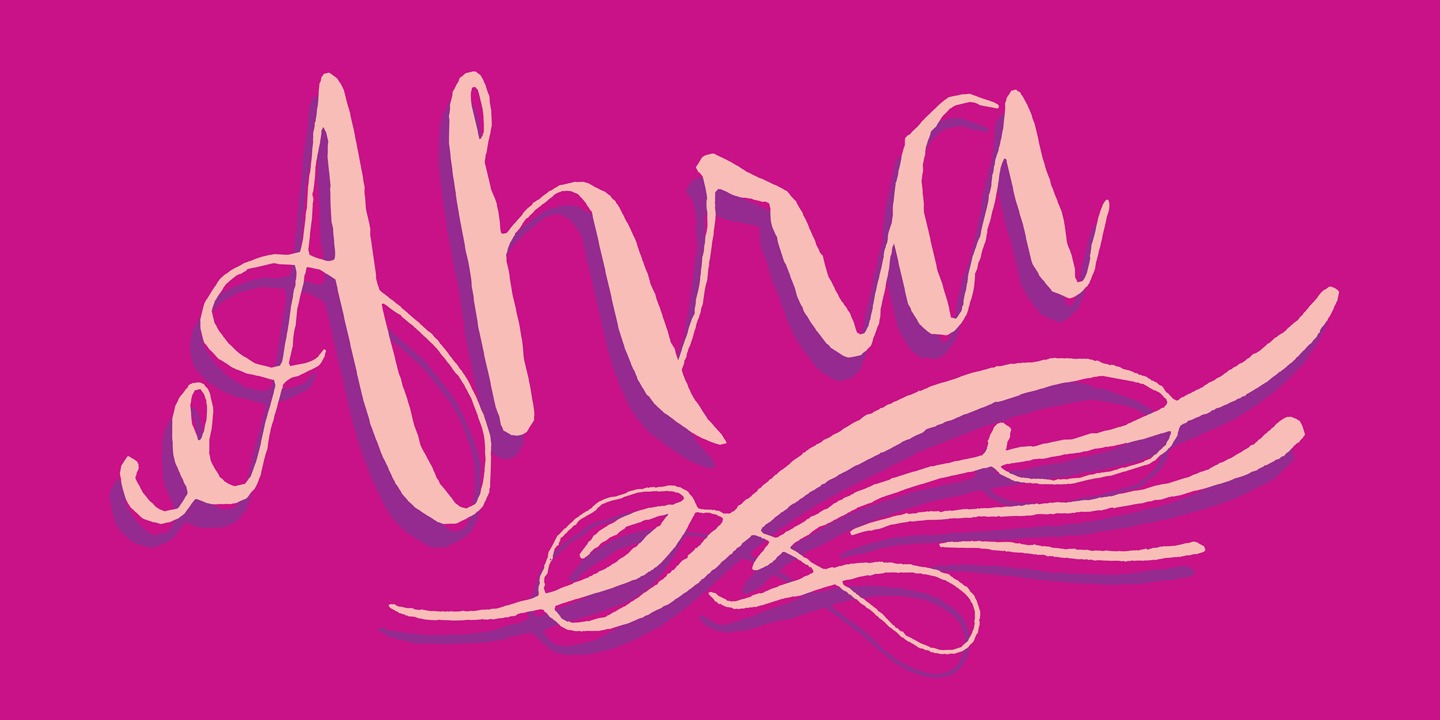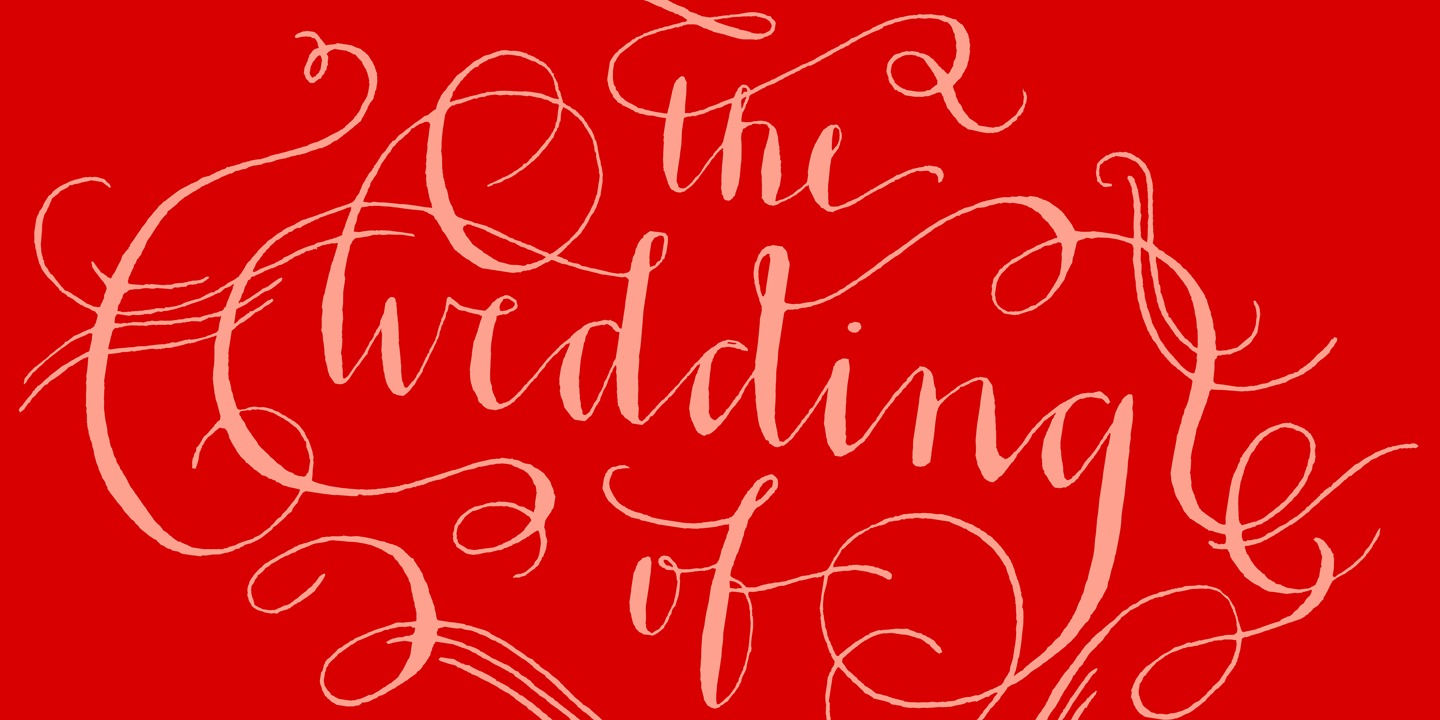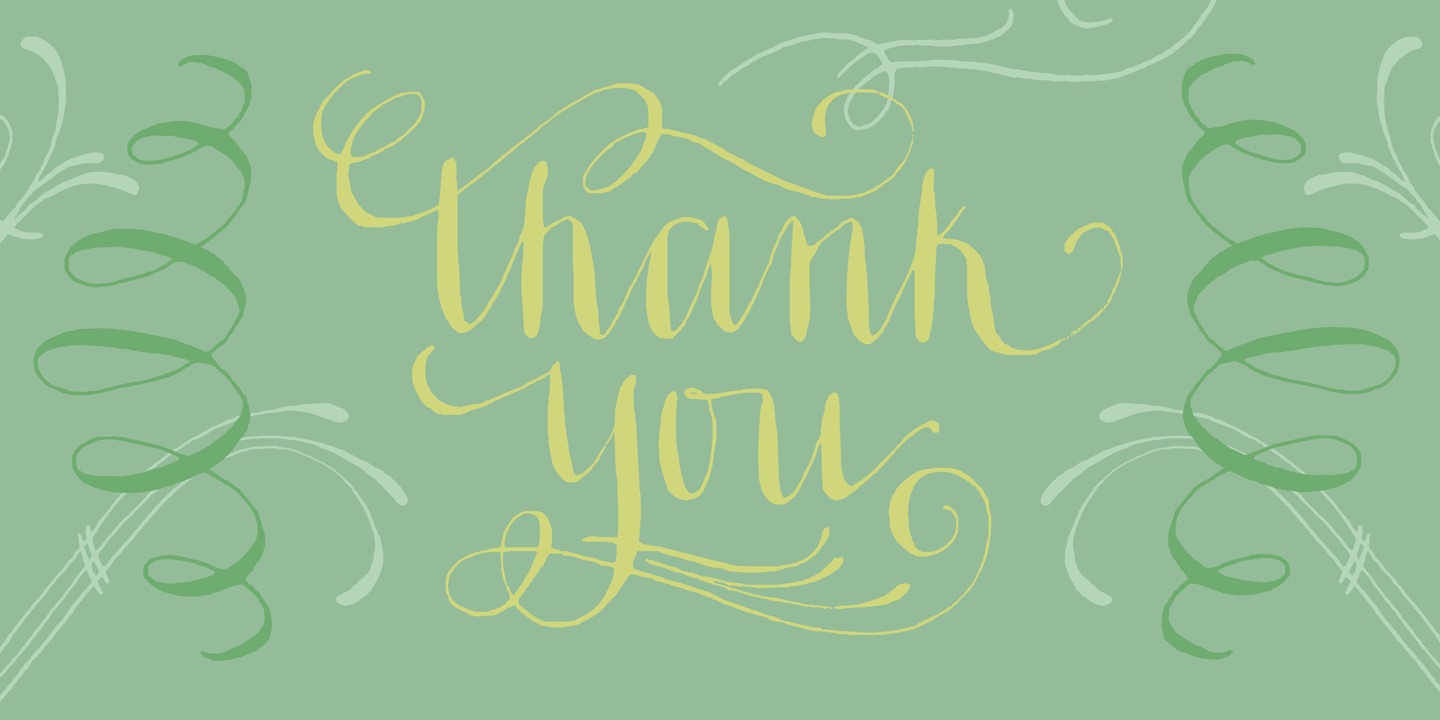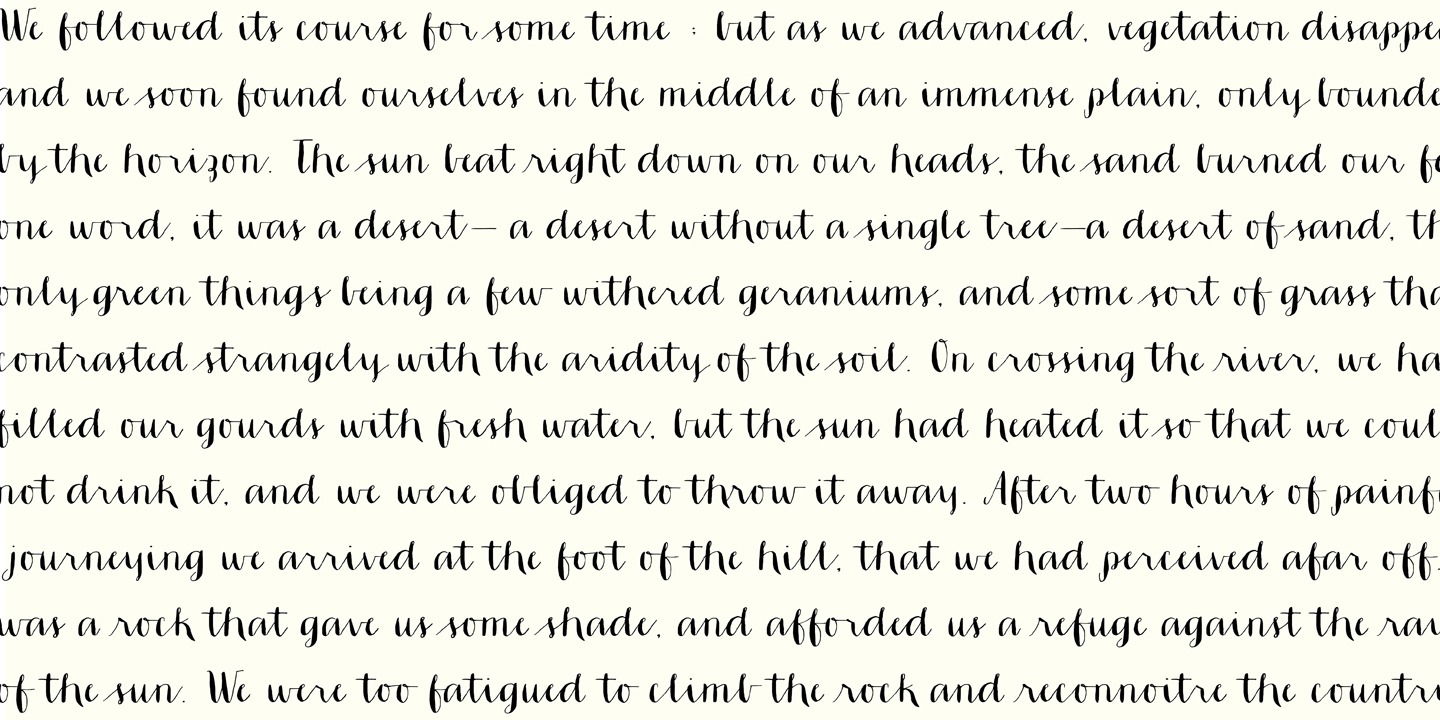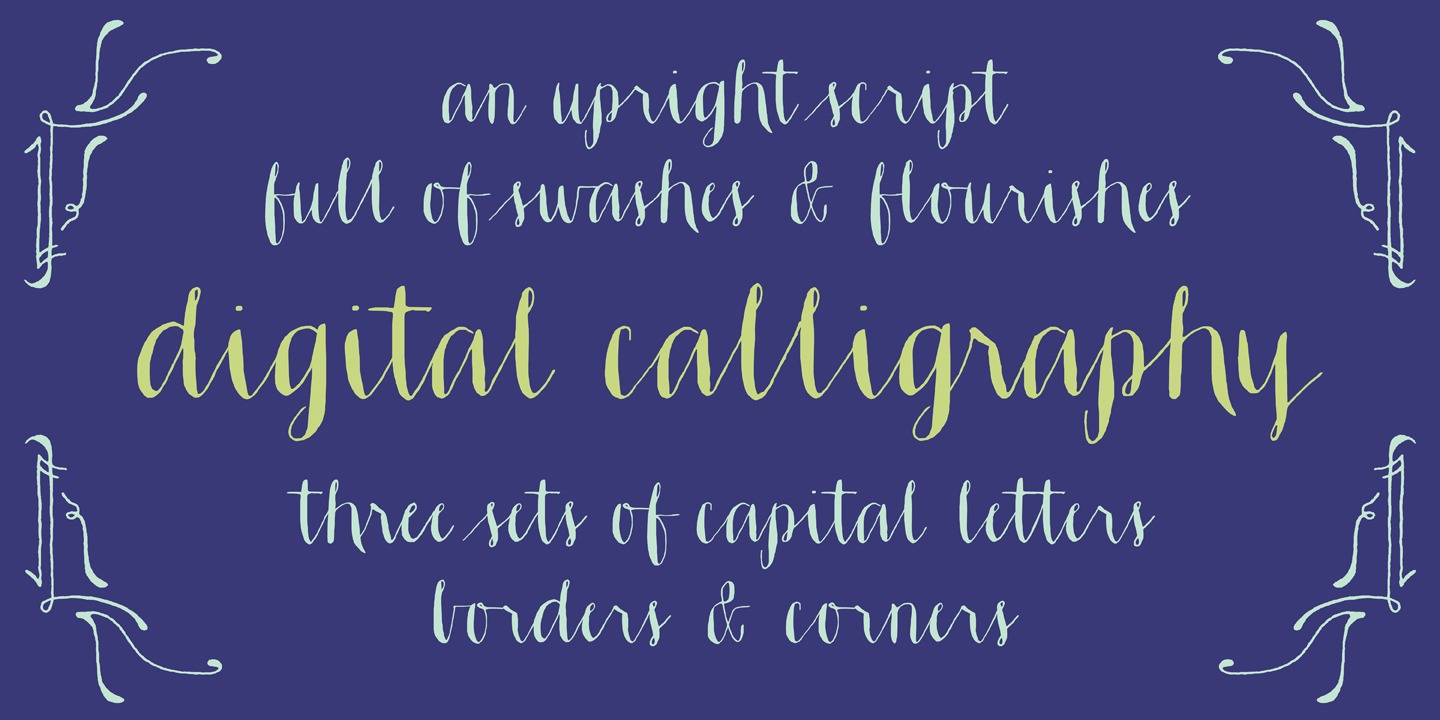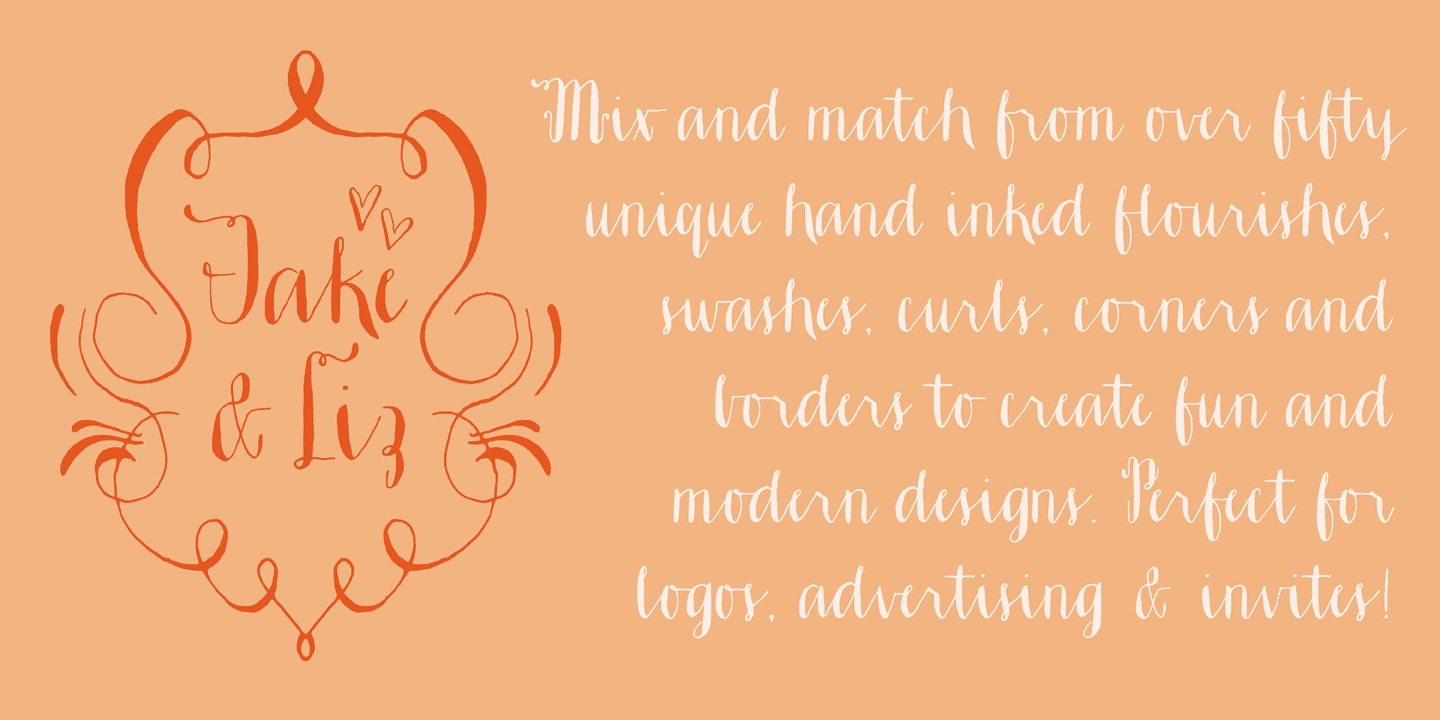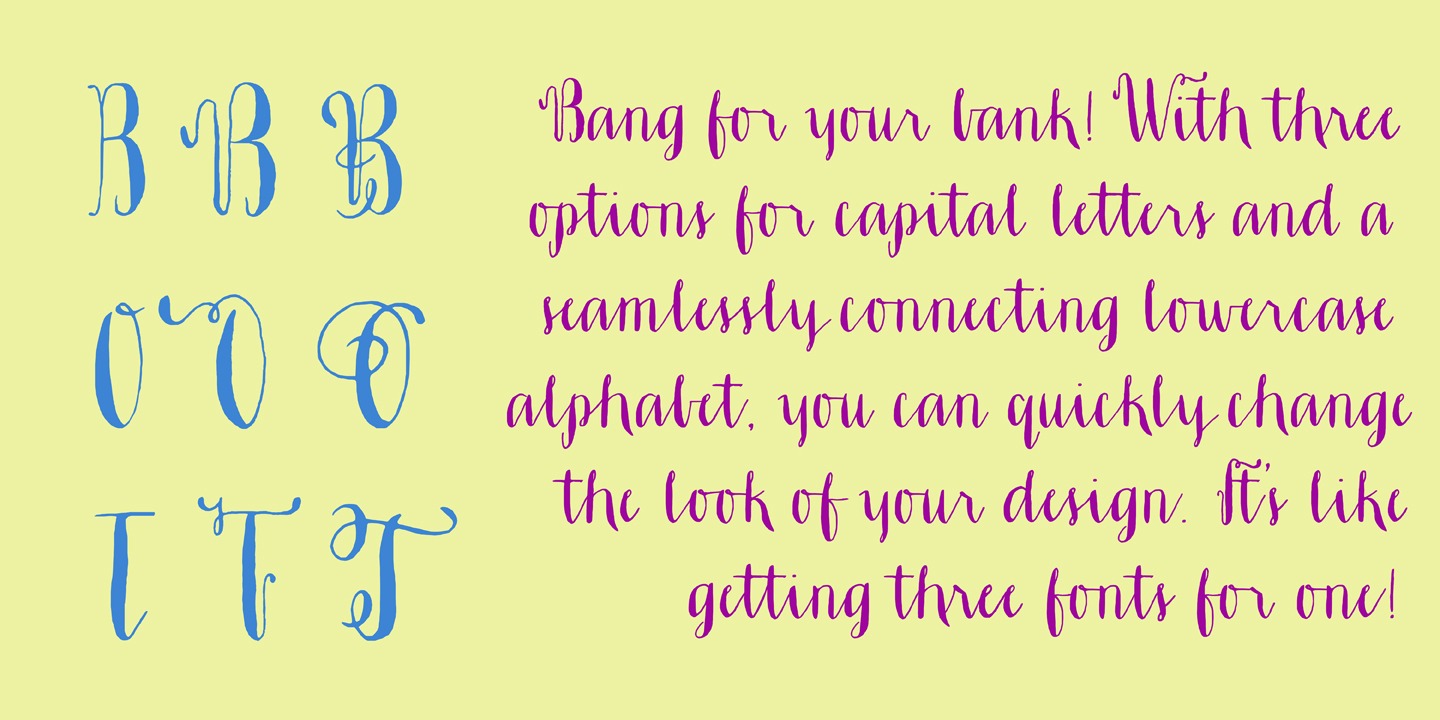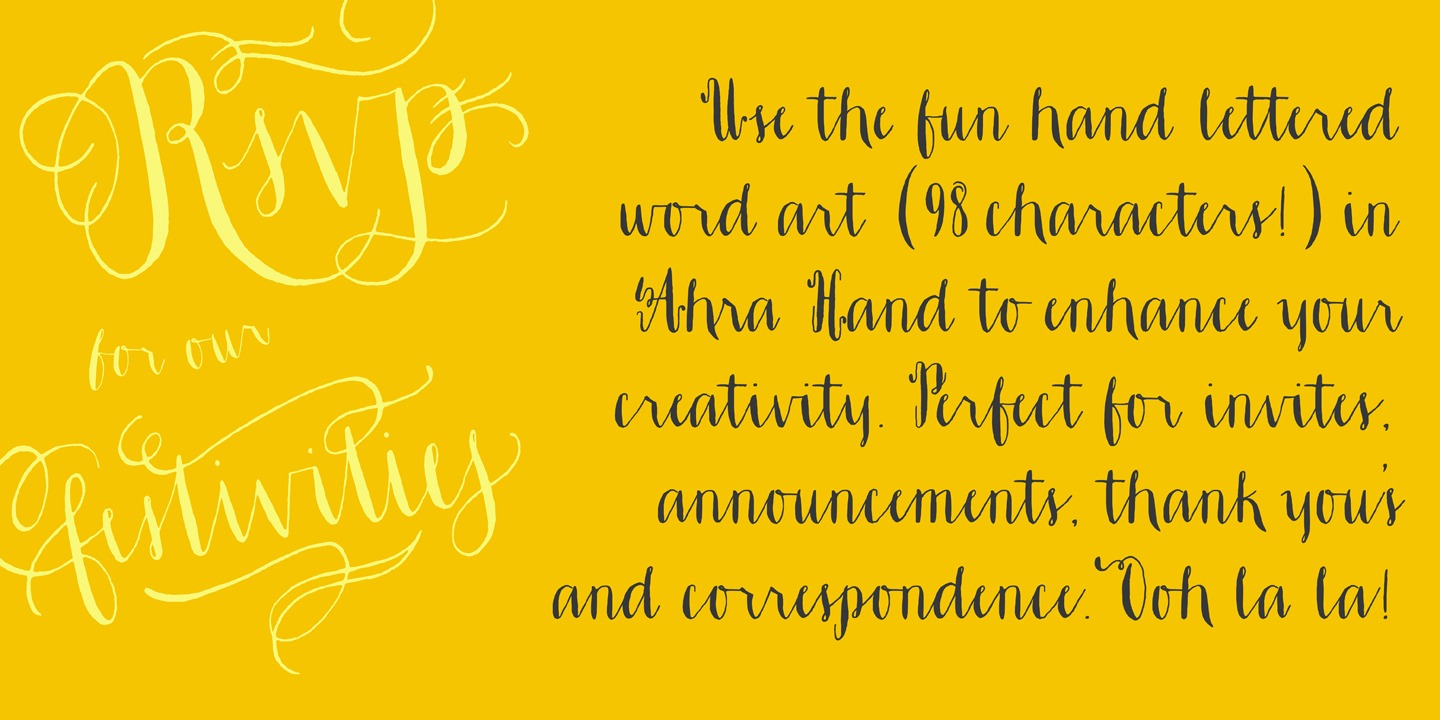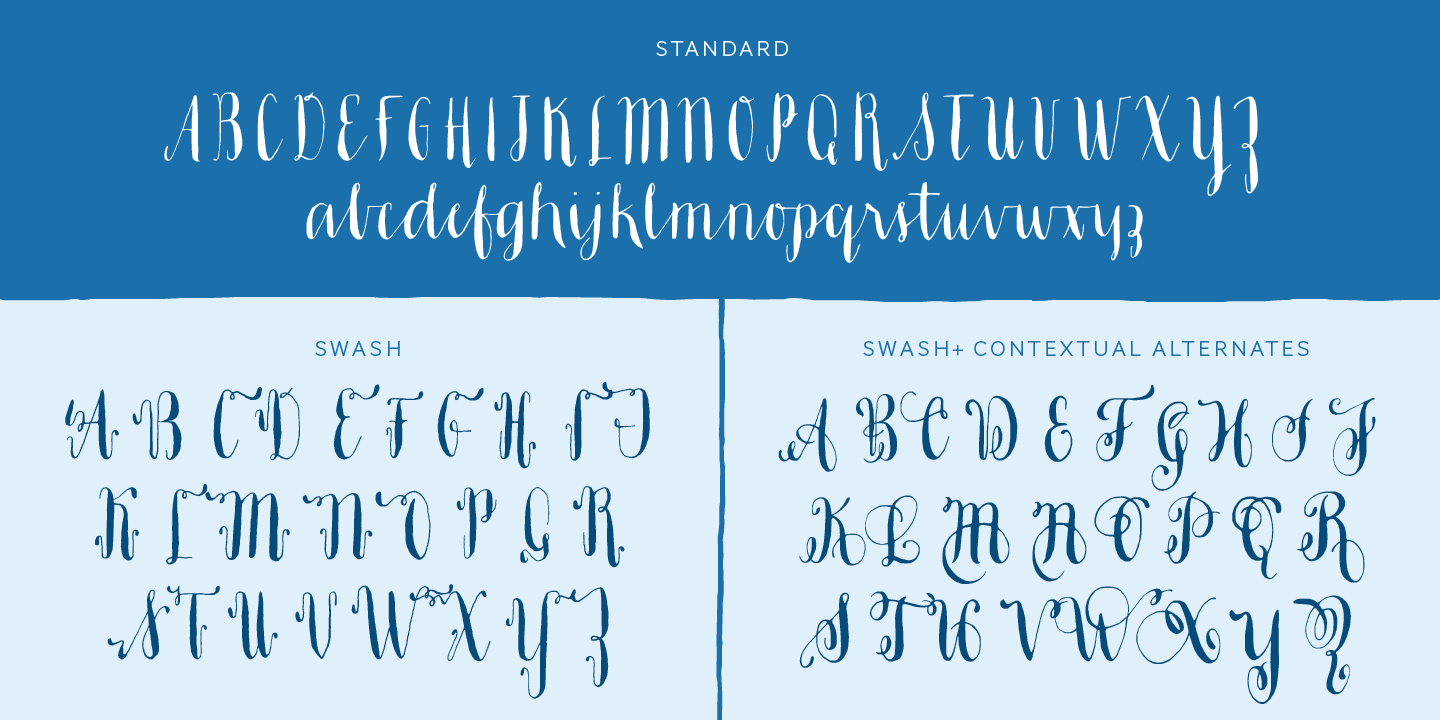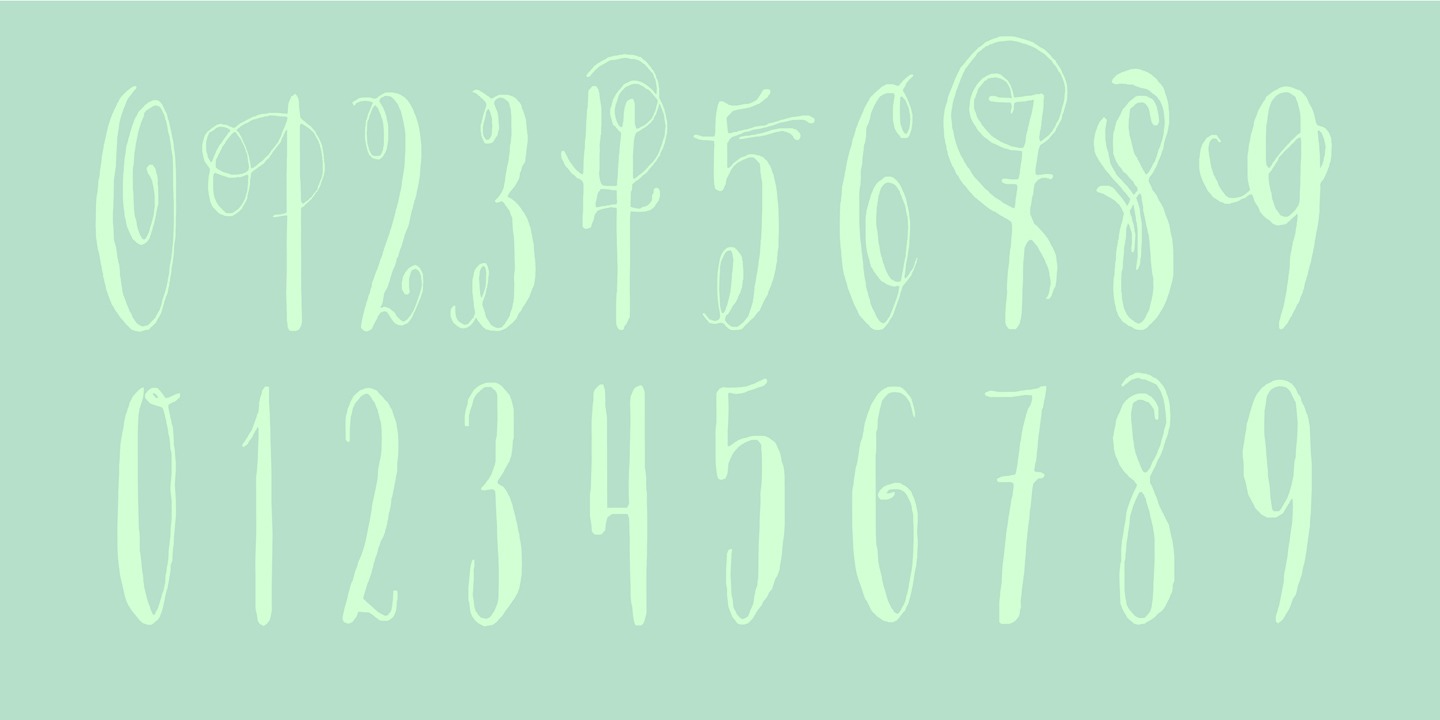
Ahra
Ahra from Magpie Paper Works is an upright, hand-lettered script full of fun calligraphy. This Opentype font was created with a pointed pen & ink, and features a host of special features.
Within Ahra are three sets of capital letters, ranging from simple to quirky to traditional, as well as single-word characters for common titles (Mr., Miss, Dr., etc.) prepositions (to, the, for, etc.) and envelope addressing (blvd., st., etc.). You'll also find simple & automatic end-of-word swashes, old-style numerals and special double-letter ligatures for a true hand-drawn look.
Ahra Hand features decorative word art, all lovingly drawn in a swirling traditional calligraphy style. There are 88 unique greetings, prompts, and phrases, plus an ornate set of numerals 0-9. Ahra Swash includes over fifty unique hand-inked flourishes, borders, corners, swashes and curls. Mix and match for a truly custom look! All were designed to coordniate with the Ahra alphabet, but can be used to enhance other faux-calligraphy fonts.